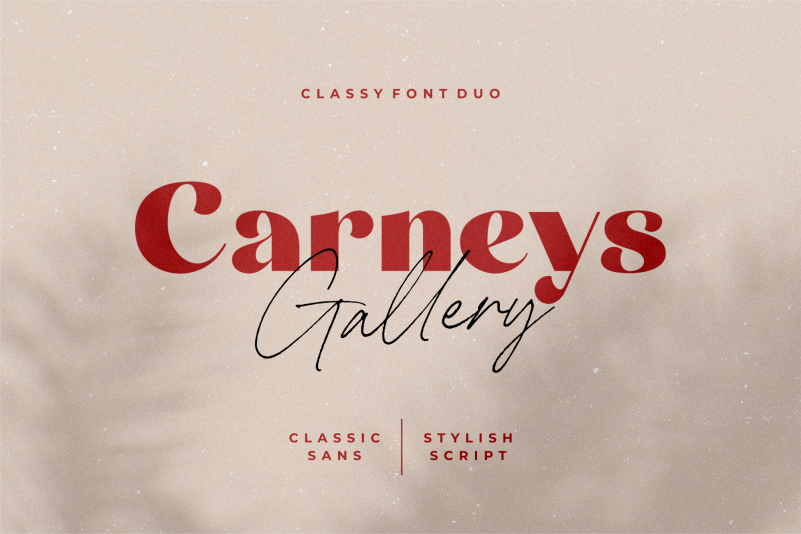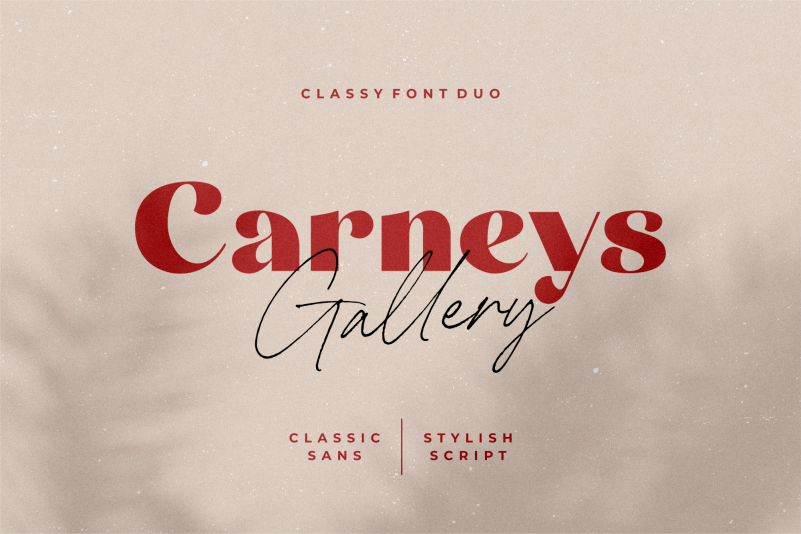
Carneys Gallery Font Duo
Carneys Gallery Script Font Duo
It’s a classy font duo, with a classic sans and script font. It’s handmade and carefully crafted so it will offer balance and beauty in your designs.
It’s includes 2 fonts :
– It’s : Sans serif font including Uppercase, Lowercase, Number, Punctuation, and multilingual support.
– Carneys Gallery Script: Uppercase, Lowercase, Number, Punctuation, multilingual support, and a tons of ligatures that will enhance the natural impression.